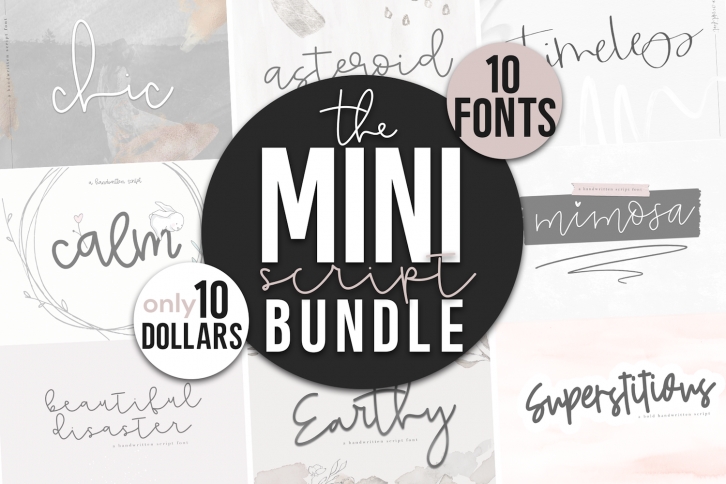
Mini Handwritten Script Bundle is a trendy and unique font with an authentic style. It was designed by KA Designs and it's a great choice for creative people who need such a font. It was released on November 25, 2018 and the file size is 8.5 MB. Mini Handwritten Script Bundle will add an organic vibe to any design idea!